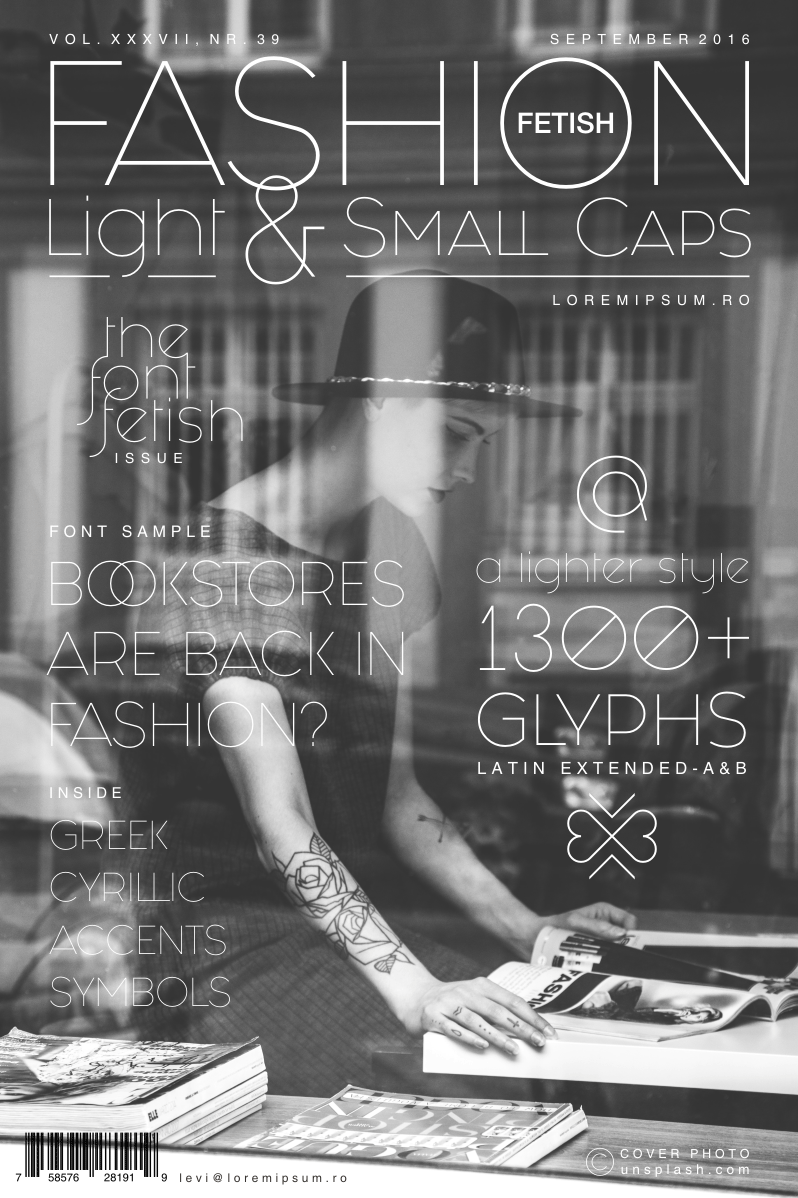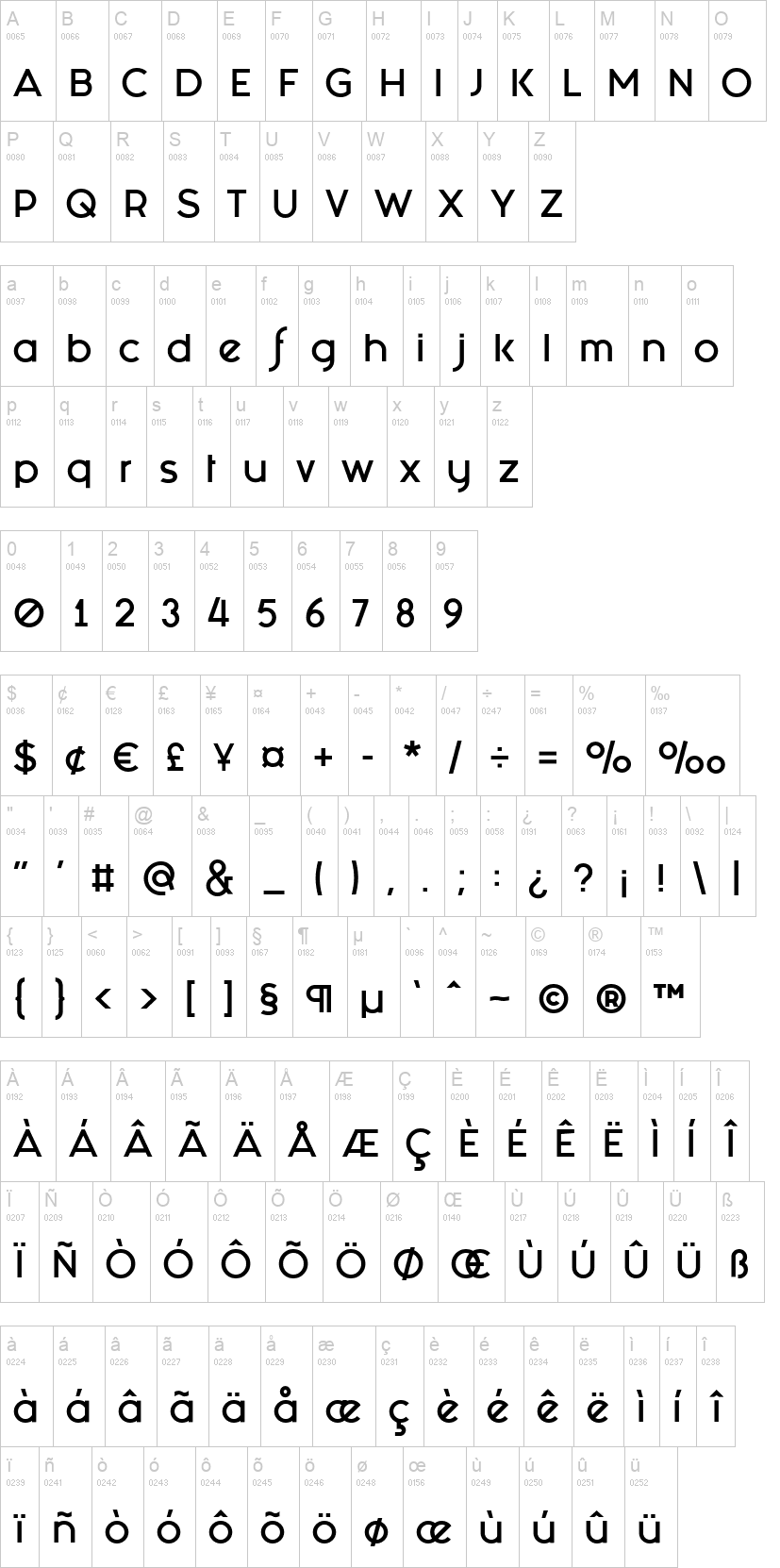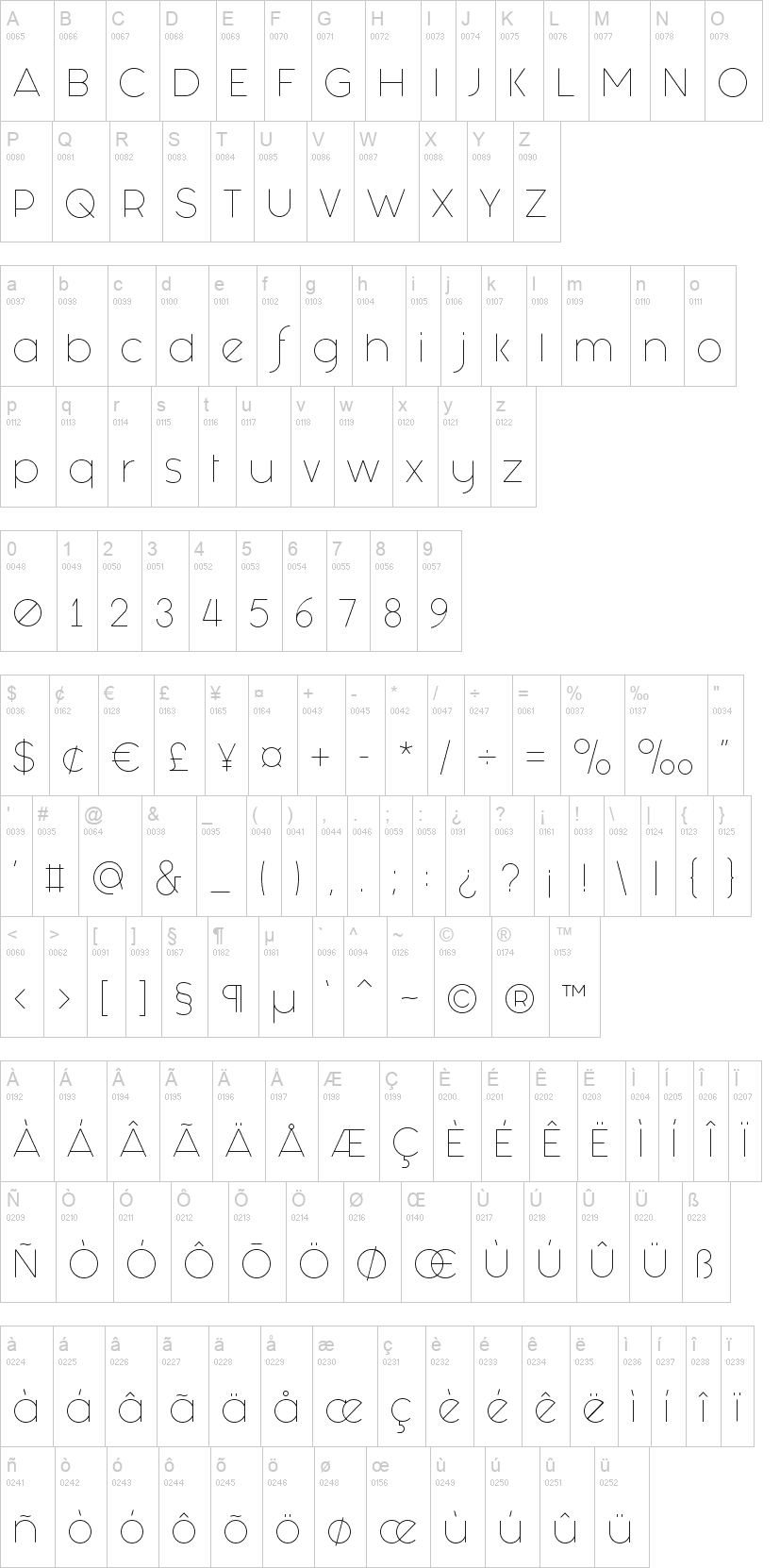
Fashion Fetish Regular.ttfFashion Fetish Bold.ttfFashion Fetish Heavy.ttfFashion Fetish Light Italic.ttfFashion Fetish Outline.ttfFashion Fetish Small Caps.ttfNote of the authorInitially I created this font to test the limits of a good visibility/readability of a very light font onscreen, but eventually this became a full font, with accents, symbols and special characters. Maybe at a small size this shouldn't be used in digital materials since the pixels have trouble "sharing" very thin lines, but otherwise it looks fine.
Inspired by classic fashion fonts, my intention was to follow the capital O and create very generous white space for all the letters, especially on more complex characters like the A, K, P, R, S, W and such - some sort of freedom for all, if you wish.